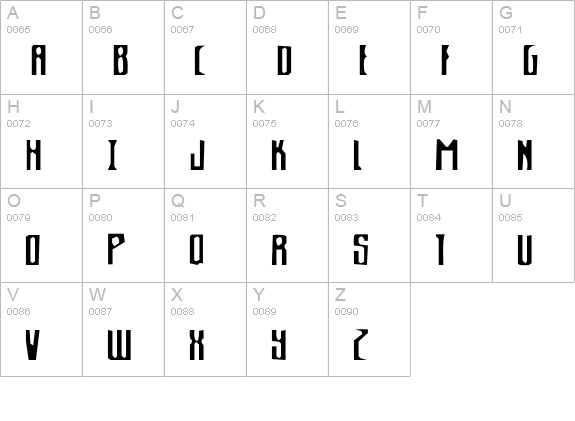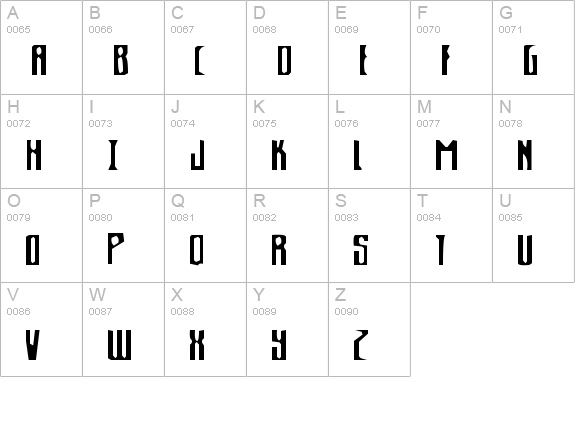
Cheap-Ass Phaser Font Details
Cheap-Ass Phaser font is a quirky and playful typeface that adds a fun and futuristic touch to any design project. With its bold and angular letterforms, this font is perfect for creating eye-catching headlines, posters, and logos. The unique "phaser" effect gives the font a dynamic and edgy look, making it stand out from the crowd. What's even better is that Cheap-Ass Phaser font is available for free download at FontsMarket.com. You can easily get your hands on this font and start using it in your projects right away. Whether you're a designer looking to add a touch of personality to your work or a hobbyist creating fun graphics for personal use, Cheap-Ass Phaser font is a great choice. Don't miss out on this fantastic font - download it now and let your creativity shine!